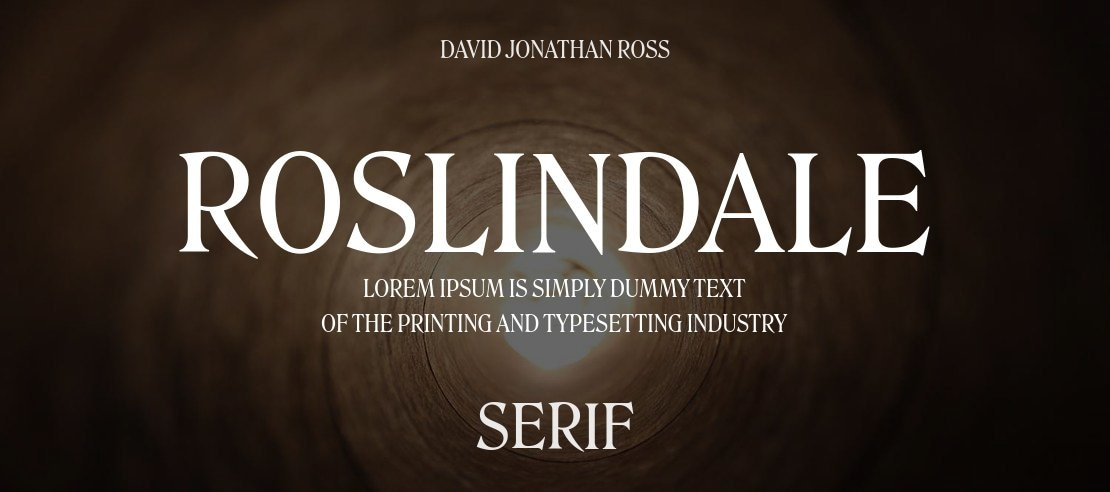
Roslindale Font Family
Designer
David Jonathan Ross
Description
Roslindale is a text and display serif that takes its inspiration from De Vinne, a typeface named for the famed nineteenth century printer and attributed to Gustav Schroeder and Nicholas Werner of the Central Type Foundry. De Vinne was an oldstyle that couldn’t shake its Victorian sensibilities, designed in a time that was so immersed in the upright Modern style that folks seemed to forget what diagonal stress actually looked like. Roslindale smooths out the clunkiness of the original and dials up the contrast, flirting with the slickness of 1970s interpretations such as ITC Bernase. Sure it can be a bit cheesy at times, but aims for a creamy brie instead of a stinky bleu. Roslindale is designed by David Jonathan Ross and is available for print, web, app, and e-book licensing at djr.com/roslindale.